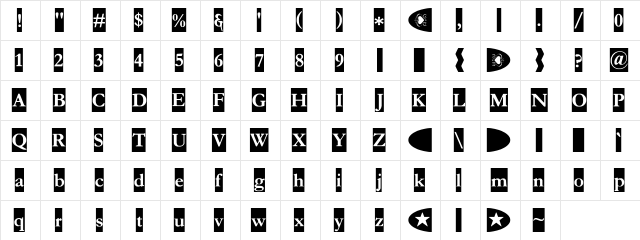
Crayomonde Regular
Design Context for Crayomonde Typeface
Crayomonde offers clean, dependable letterforms without strong stylistic allegiance, making it a practical choice for designers who need flexibility.